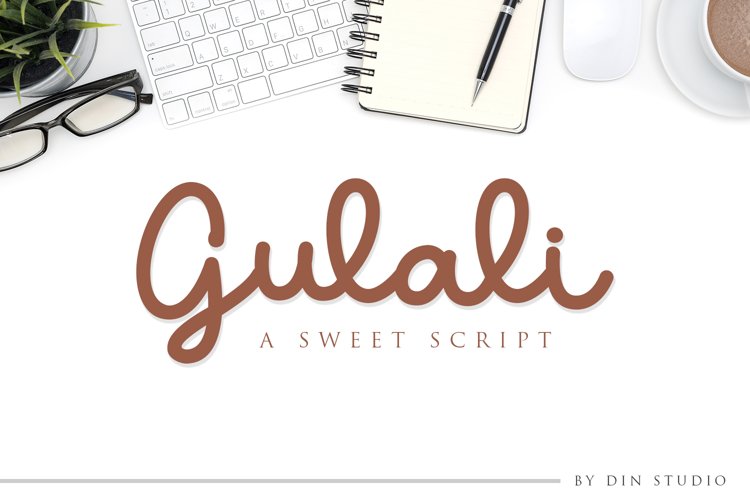
Hello... I want to introduce Gulali Script, This font suitable for your design project especially for branding and lettering. Whats include in this package :